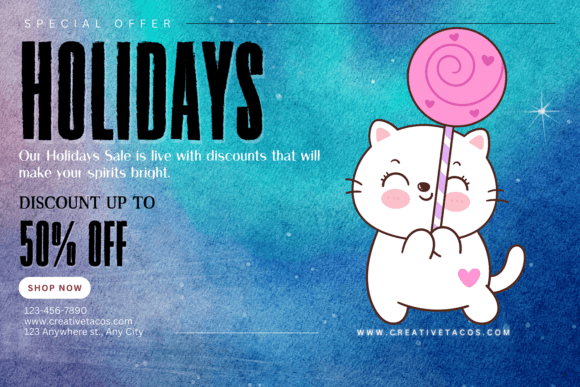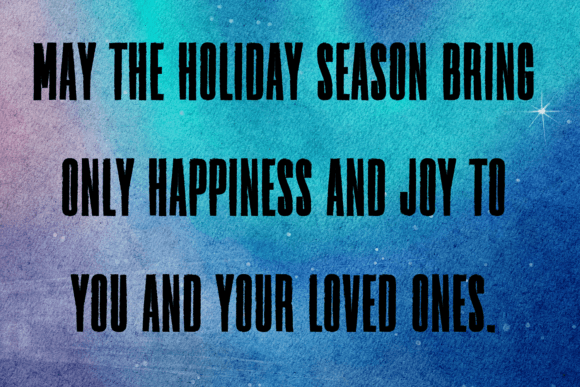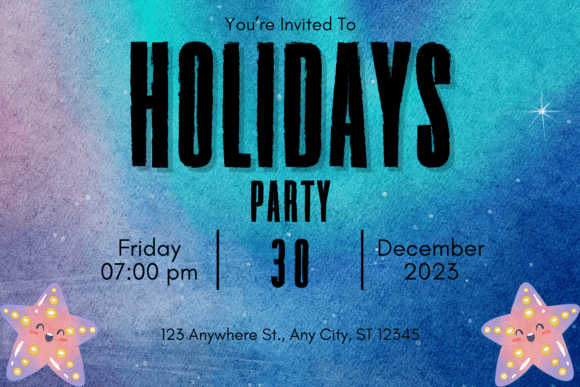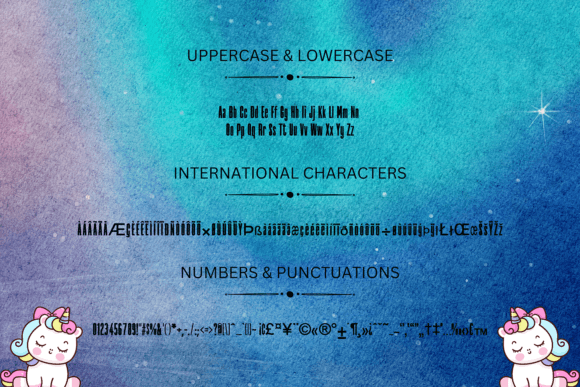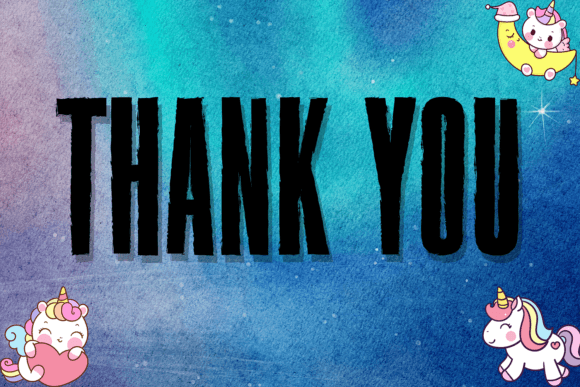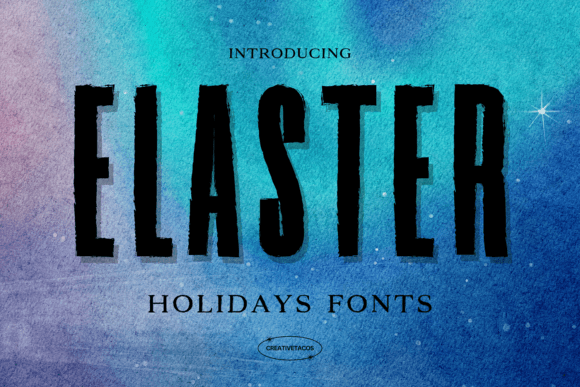
Introducing Elaster Font: The Ultimate Holiday Design Companion
Are you tired of using the same old fonts for your holiday design projects? Look no further! We are thrilled to introduce you to Elaster Holidays Font, a stylish and professional textured brush font that is specifically designed to capture the spirit of joy and celebration. Whether you’re creating holiday invitations, greeting cards, slideshows, logos, headlines, posters, branding, magazine layouts, website designs, advertisements, packaging designs, book covers, or other celebration designs, Elaster font is the perfect choice.
What Makes Elaster Font So Special?
Elaster font is an extremely versatile and feature-rich font that is designed to meet all your holiday design needs. Here are some of its key features:
- Capital and Small Letters: Elaster font comes with both capital and small letters, giving you the flexibility to create a wide range of designs.
- Numbers, Punctuation, and Symbols: The font includes numbers, punctuation, and symbols, making it a comprehensive solution for all your design needs.
- Latin Extended Character Support: Elaster font supports Latin extended characters, ensuring that you can create designs for a global audience.
- Textured Brush Design: The font features a beautiful textured brush design that gives your designs a unique and festive touch.
Why Choose Elaster Font for Your Holiday Designs?
Elaster font is specifically designed to capture the spirit of joy and celebration, making it the perfect choice for holiday designs. Here are some reasons why you should choose Elaster font for your next project:
- Unique and Festive Design: Elaster font features a unique and festive design that will add a touch of joy and celebration to your designs.
- Highly Versatile: The font is highly versatile and can be used for a wide range of design projects, from holiday invitations to packaging designs.
- Professional and Stylish: Elaster font is a professional and stylish font that will elevate your designs and give them a polished look.
How to Use Elaster Font in Your Designs?
Using Elaster font in your designs is easy and straightforward. Here are some tips to get you started:
- Pair it with Other Fonts: Elaster font can be paired with other fonts to create a unique and interesting design.
- Experiment with Colors: The font looks great in a variety of colors, so don’t be afraid to experiment and find the perfect color for your design.
- Use it for Headlines and Titles: Elaster font is perfect for headlines and titles, where its textured brush design can really shine.
- Add a Personal Touch: You can add a personal touch to your designs by using Elaster font to create custom graphics and illustrations.
In conclusion, Elaster Holidays Font is a stylish and professional textured brush font that is specifically designed to capture the spirit of joy and celebration. With its unique and festive design, high versatility, and ease of use, Elaster font is the perfect choice for holiday designs. Whether you’re a designer, crafter, or DIY enthusiast, Elaster font is a must-have font for your design arsenal. So why wait? Download Elaster font today and start creating stunning holiday designs that will leave a lasting impression!
| Feature | Benefit |
| Capital and Small Letters | Flexibility to create a wide range of designs |
| Numbers, Punctuation, and Symbols | Comprehensive solution for all design needs |
| Latin Extended Character Support | Ability to create designs for a global audience |
| Textured Brush Design | Unique and festive touch to designs |